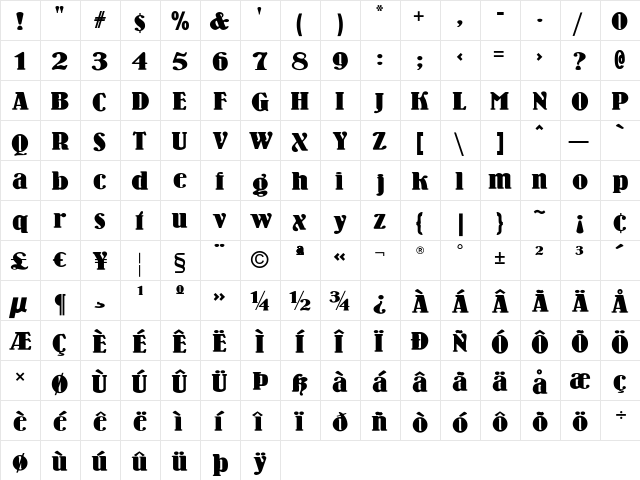
WoodenNickelBlack Regular
Design Context for WoodenNickelBlack Typeface
WoodenNickelBlack taps into classic Western woodtype traditions — bold, characterful, and impossible to ignore.
A natural fit for craft spirits, ranch branding, rodeo events, and Americana-inspired design work.
Font Pairing: Combine WoodenNickelBlack with a simple slab or neutral sans — period-accurate companions reinforce the vintage feel without competing for attention.
Pro Tip: Use WoodenNickelBlack for short, impactful bursts of text — it shines in poster headlines and product names rather than extended copy.